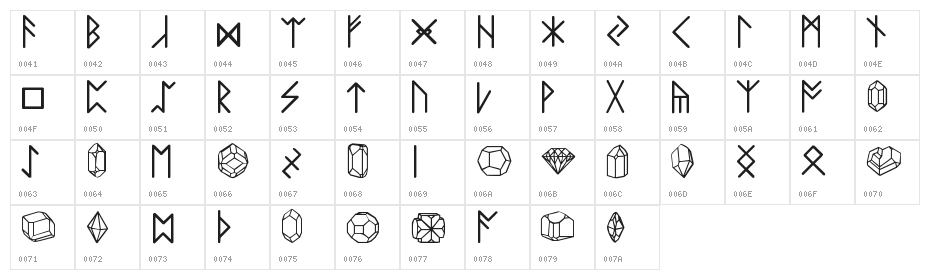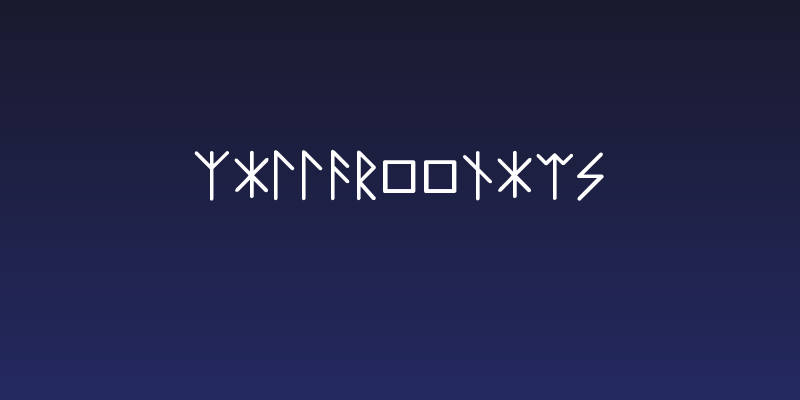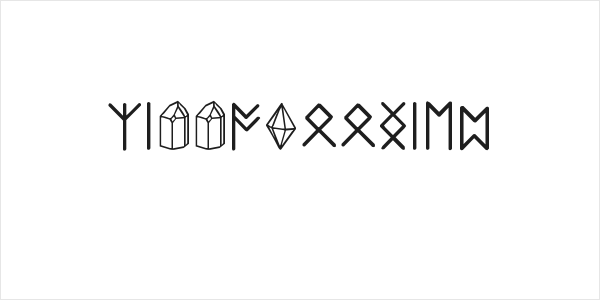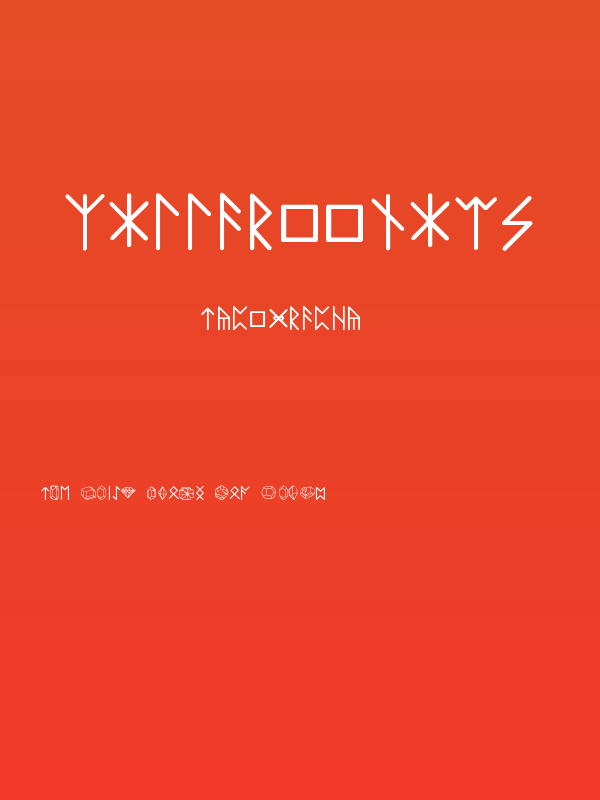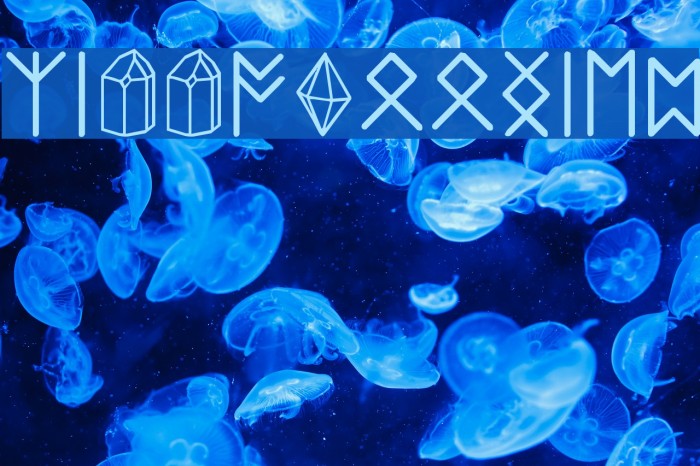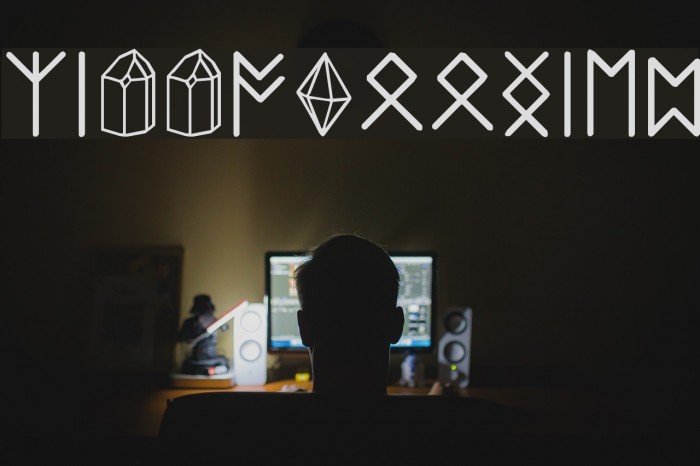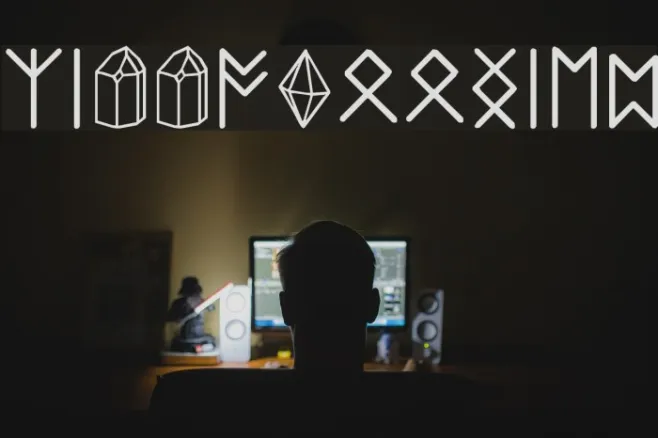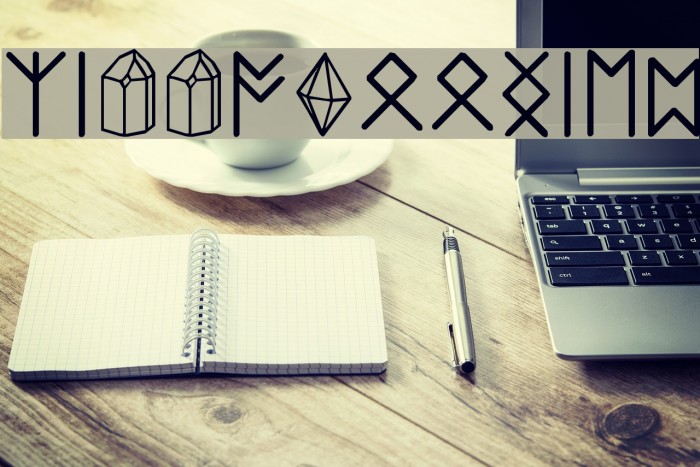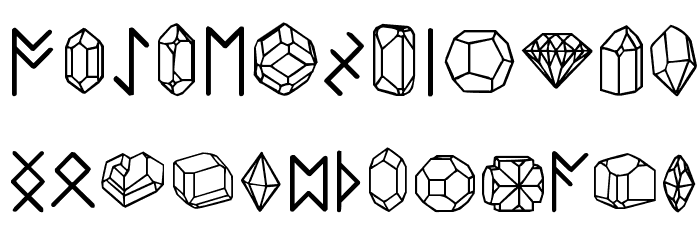
Zillaroonies Font
Zillaroonies Description
This font features a unique blend of ancient runic symbols and geometric shapes, creating a mystical and enigmatic appearance. The characters are composed of straight lines and sharp angles, resembling ancient scripts with a modern twist. The inclusion of gem-like shapes adds an ornamental and decorative element, making it stand out. The overall design is bold and striking, with each character maintaining a consistent thickness, giving it a uniform look. The font's distinct style is both artistic and functional, suitable for creative projects that require a touch of mystery and elegance.
| Overall Style | Mystical, Enigmatic, Decorative |
| Use Case | Logos, Posters, Titles |
| Proposed Projects | Ideal for fantasy-themed designs, game titles, mystical branding, or decorative posters. |